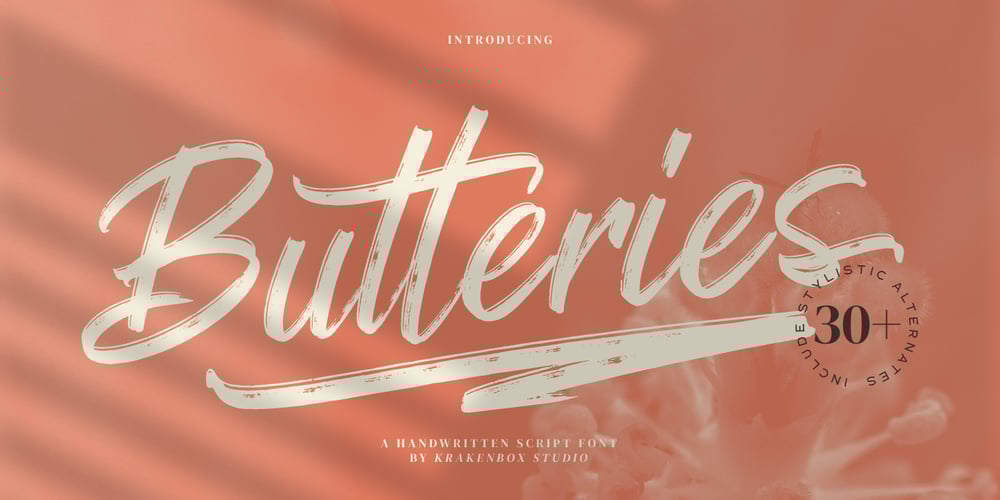
Butteries Font Family was designed by Yahdi Kumala and published by Krakenbox Studio. Butteries contains 2 styles and family package options. Butteries is a fashionable and brushed script font, with its own unique curves and an elegant inky flow. Its elegant, classy, and modern look makes it a fantastic choice for fashion, signature, album covers logos and more. This font is PUA encoded which means you can access all of the amazing glyphs and ligatures with ease!